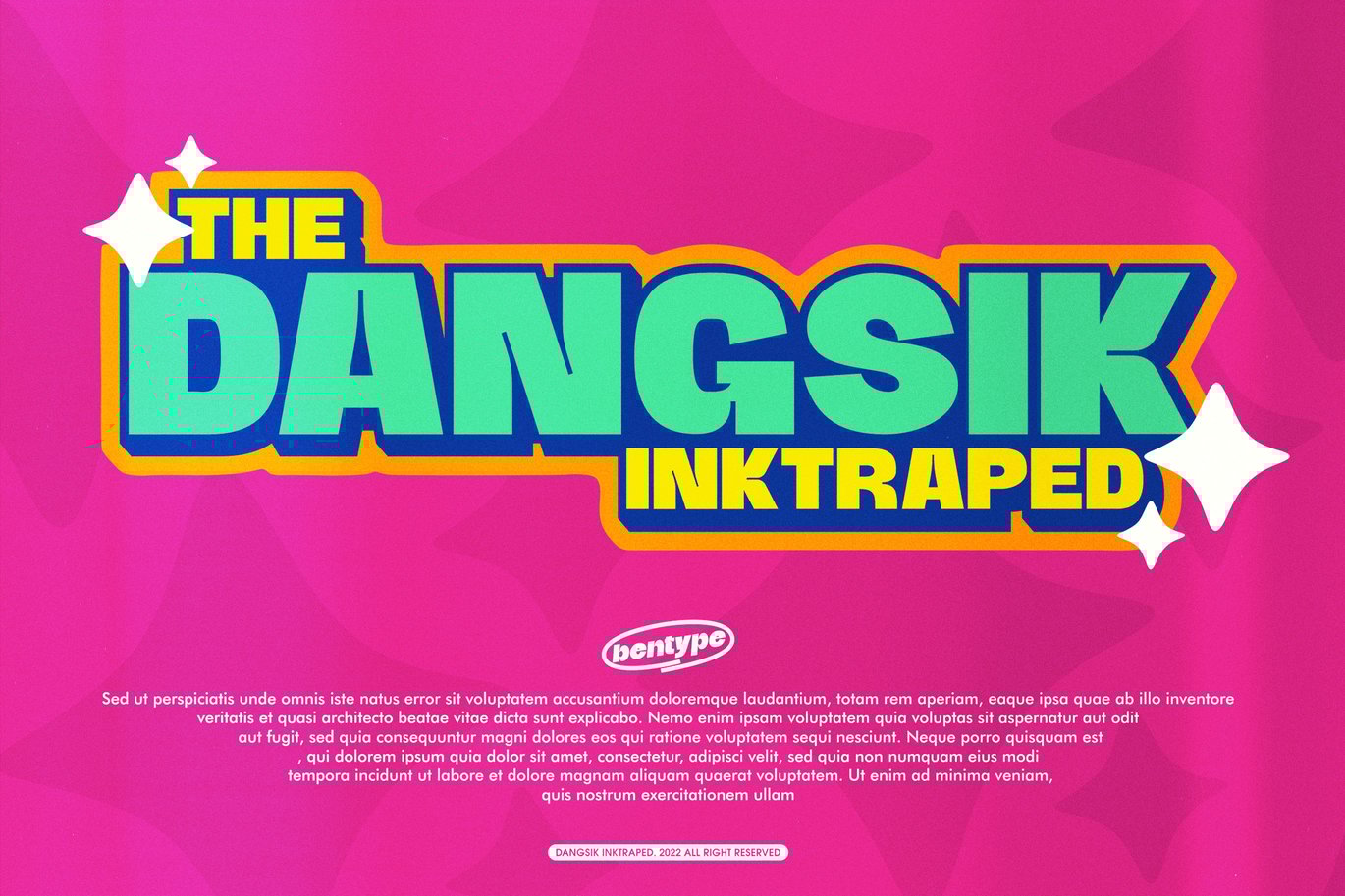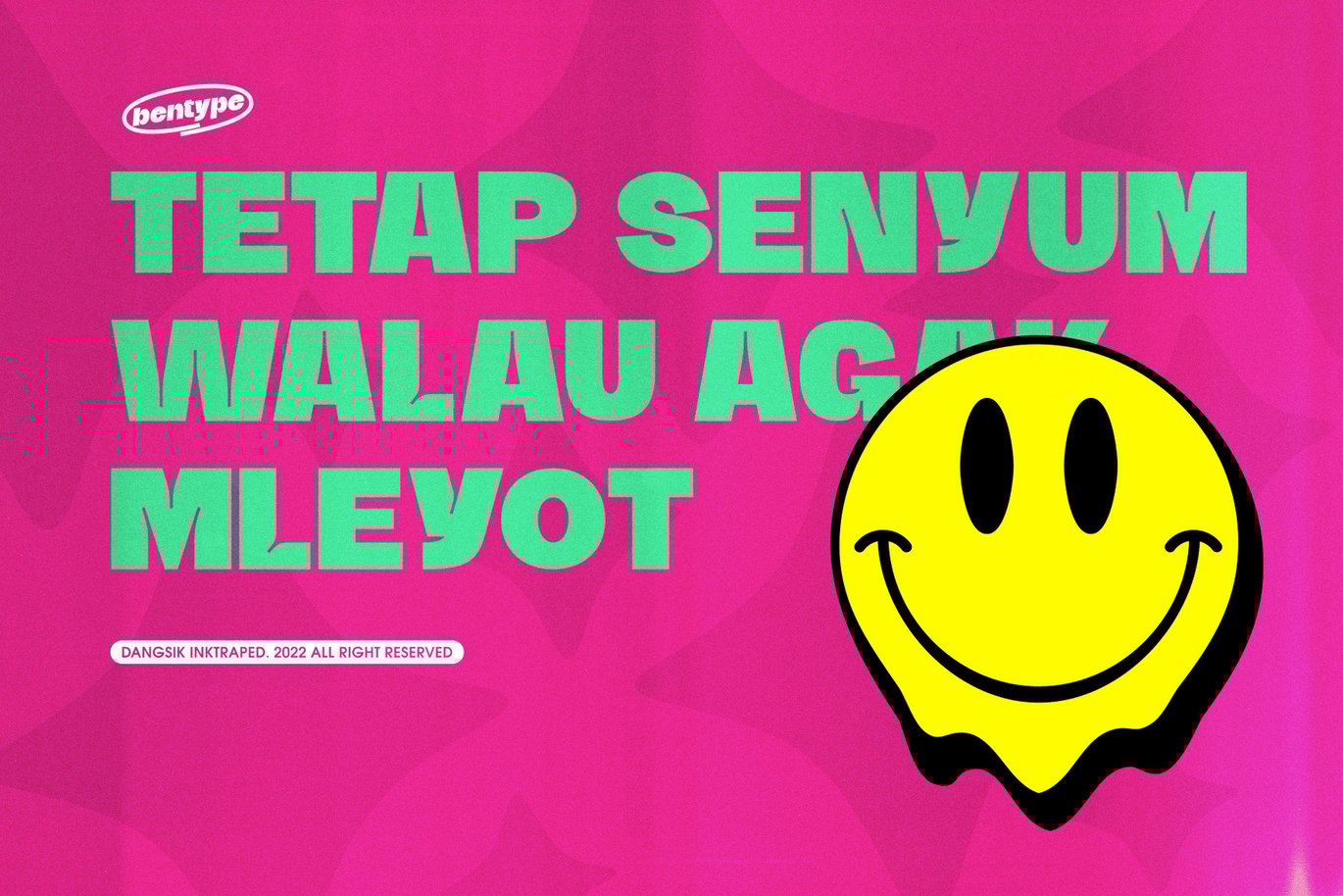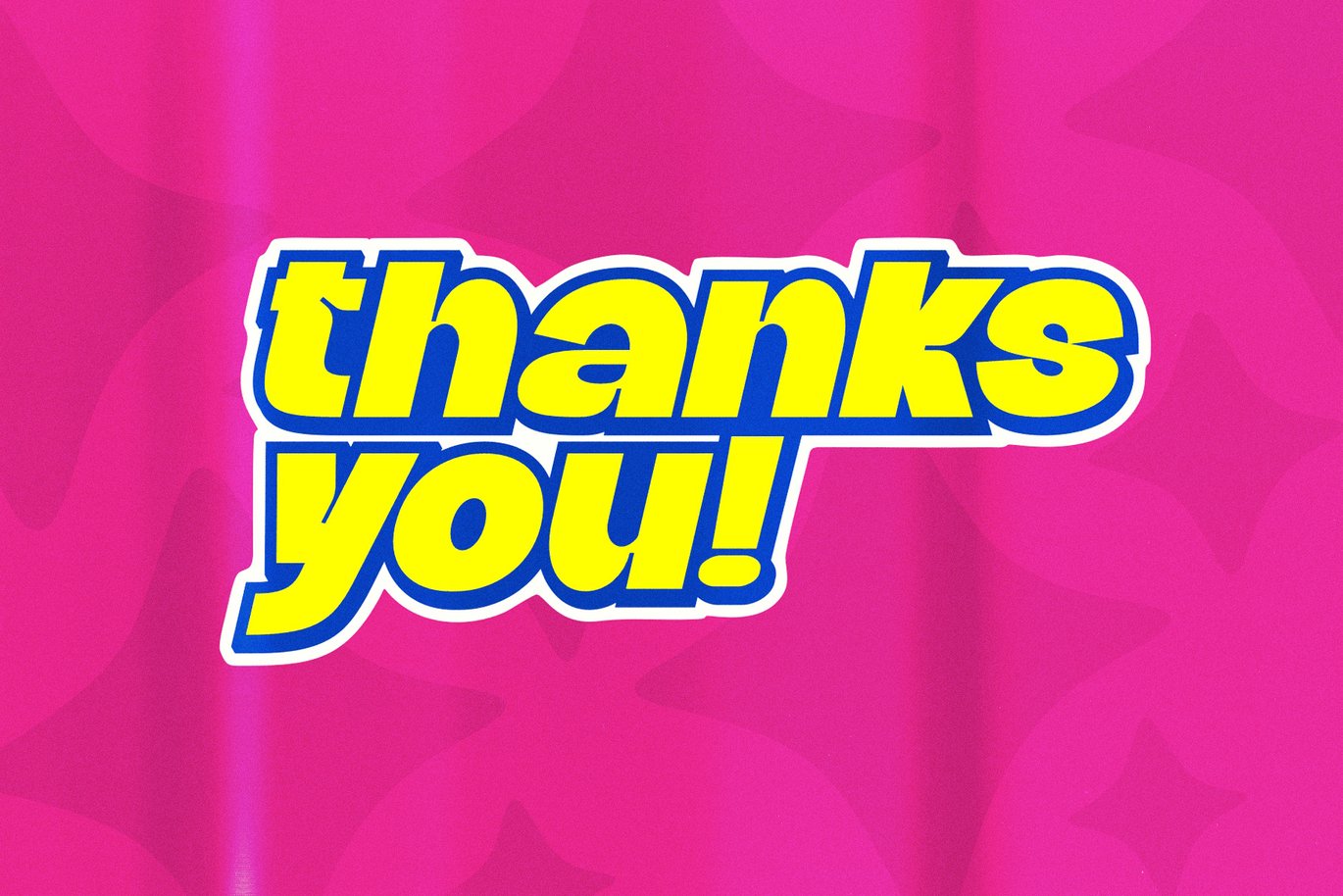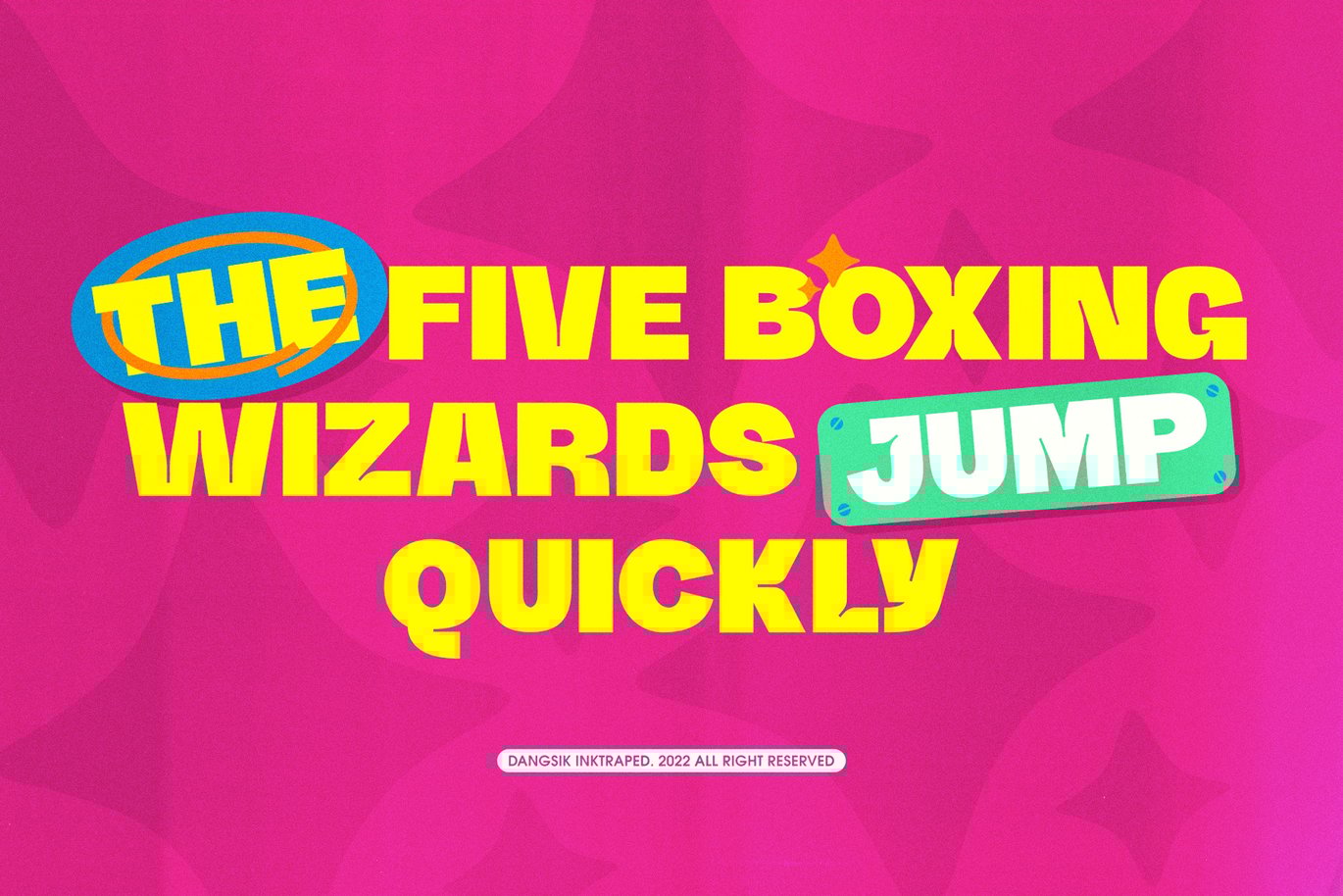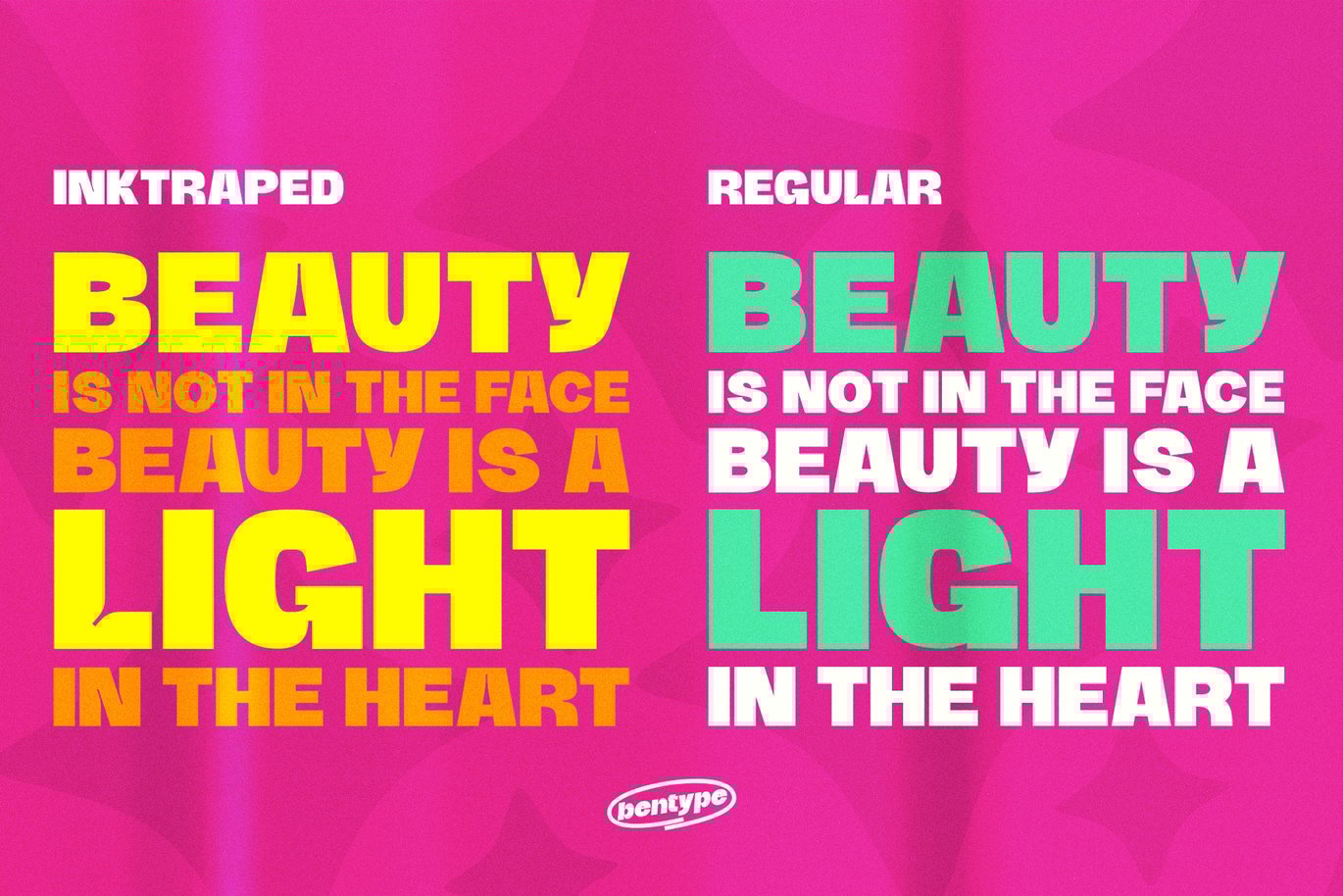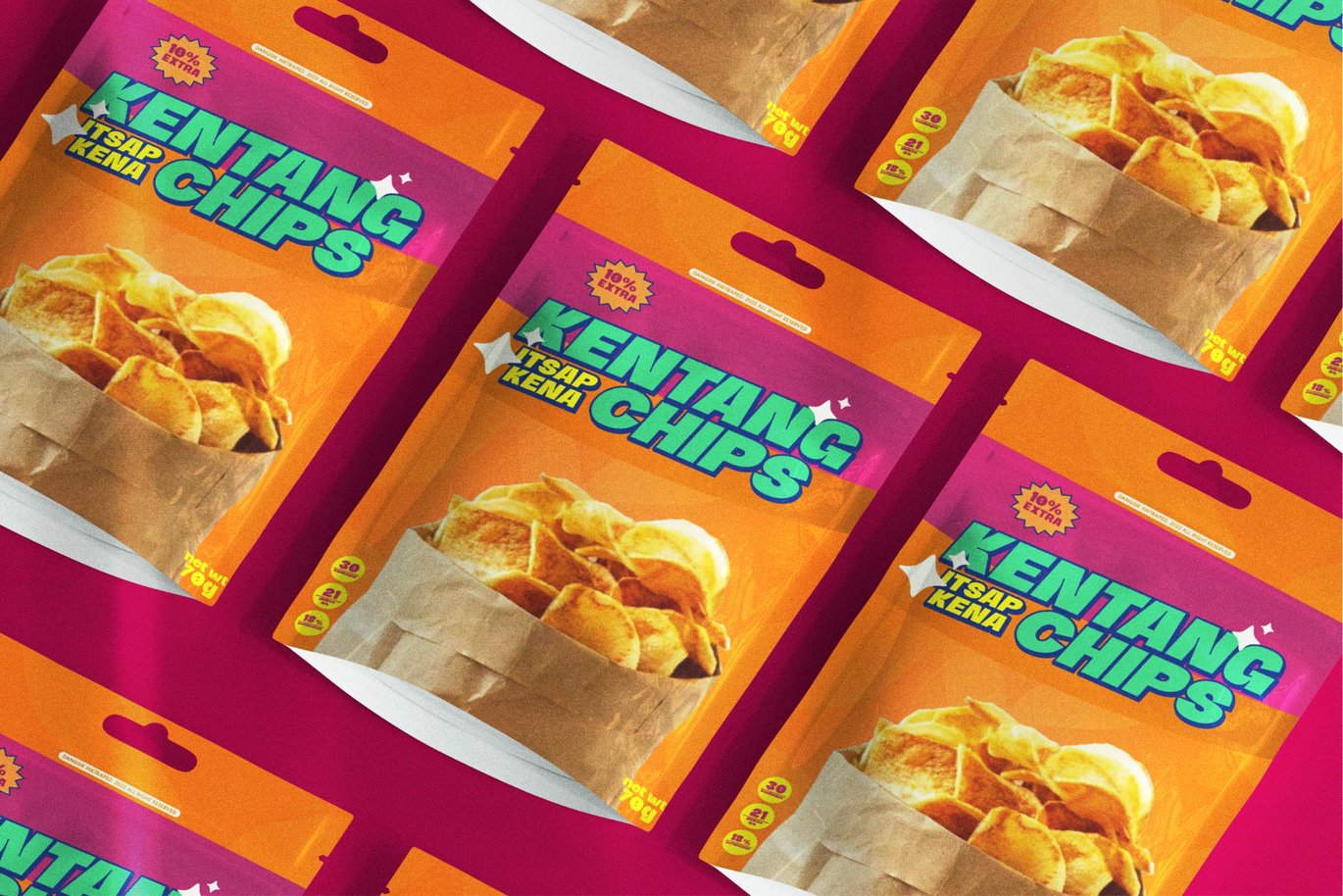
Dangsik – Inktraped Bold Font
This font is named Dangsik, the one that occupies the largest available space. In addition to the bold structure, there are ink-traped details that complement the composition.
Single weight monospaced grotesk font, ideal for display applications With Latin Extended-A and B glyphs Partially Latin Extended Additional glyphs
- regular and inktraped
- oblique
This font looks very modern when paired with contrasting design colors. This font is made especially for those of you who want to make book covers, brand logos, and anything modern and contemporary.